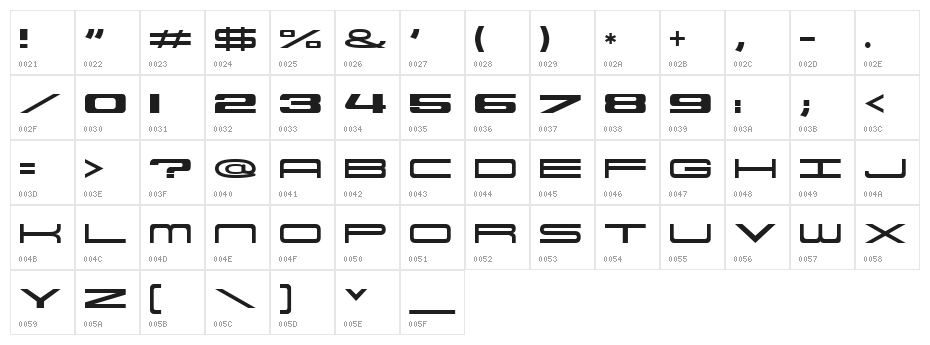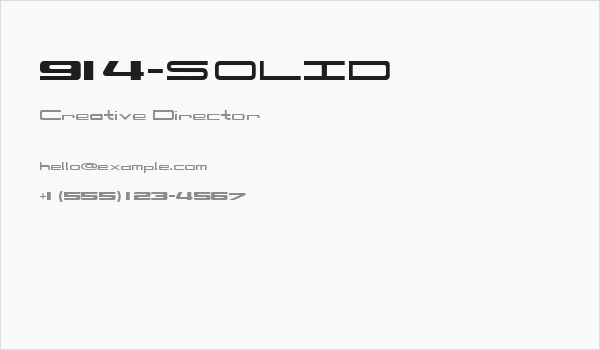
914-SOLID Font
914-SOLID Description
This font exhibits a futuristic and geometric design, characterized by its clean lines and angular shapes. The uppercase letters are uniform in height, with a distinct squared-off appearance that lends a modern and technical feel. The lowercase letters maintain a similar geometric style, with some characters featuring unique cuts and angles that add visual interest. The numerals are bold and consistent with the overall design, ensuring readability and a cohesive look. Special characters are designed to match the angular and modern aesthetic, making this font suitable for a variety of digital and print applications.
| Use Case | Headlines, Logos, Digital interfaces |
| Proposed Projects | Ideal for technology branding, sci-fi themed projects, video game interfaces, and modern advertising. |